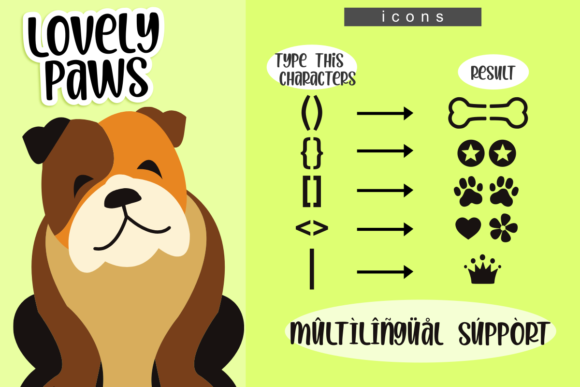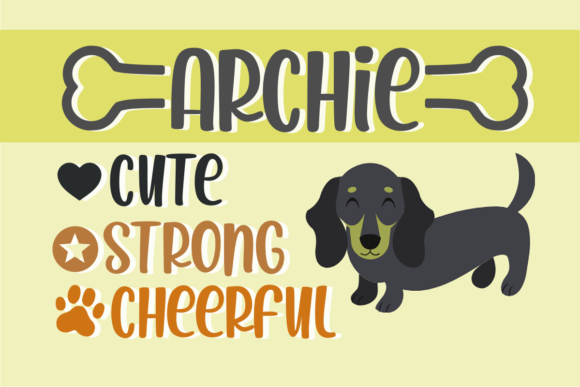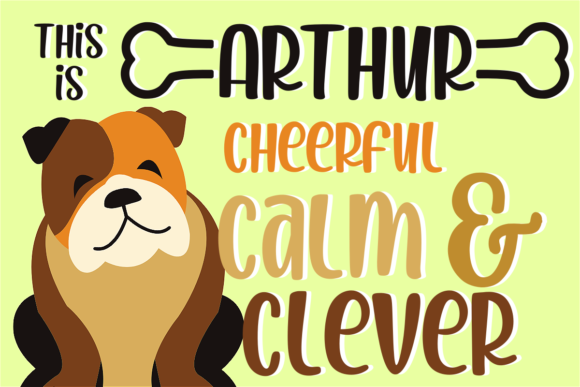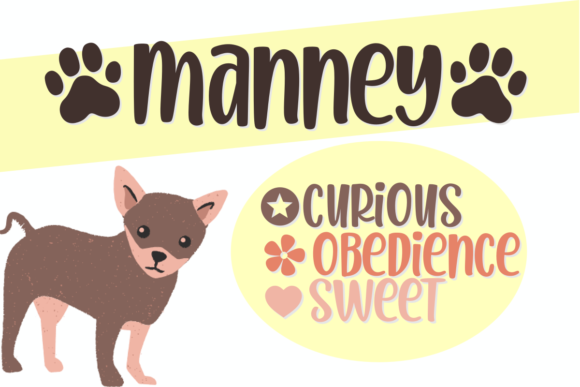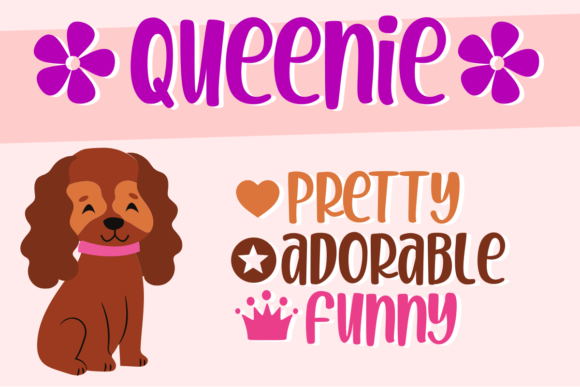
Lovely Paws Font
About Lovely Paws Font
Lovely Paws is a sweet and quirky handwritten font. Its friendly feel makes this font incredibly versatile, fitting a wide range of contexts. Add it to your creative ideas and notice how it makes them stand out!